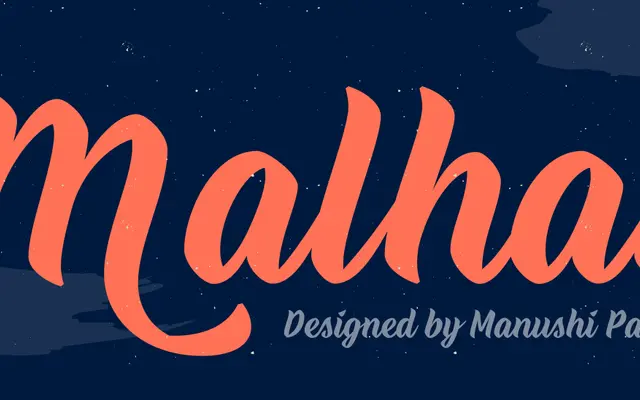
A five-weight script family from Indian Type Foundry, spanning Thin to Bold for display and editorial applications.
Malhar offers an unusually wide weight range for a script typeface, running from Thin through to Bold across five cuts. Released by Indian Type Foundry, it sits alongside other script offerings in their catalogue such as Katana and Blonde Script. The range of weights gives it flexibility across headline, packaging and branding contexts where tonal variation is needed.
Classified as Script by ITF; the page lists it under the Script category with no further subdivision, suggesting a calligraphic or brush-style Latin script face.